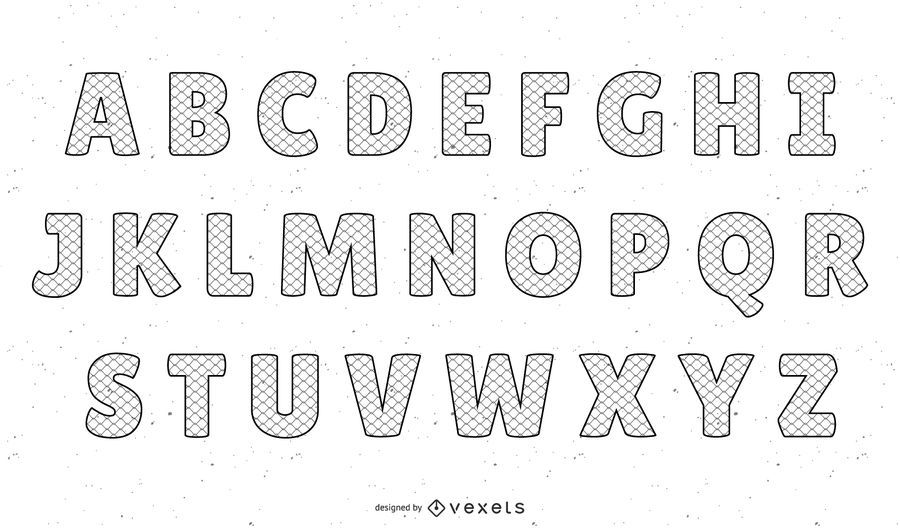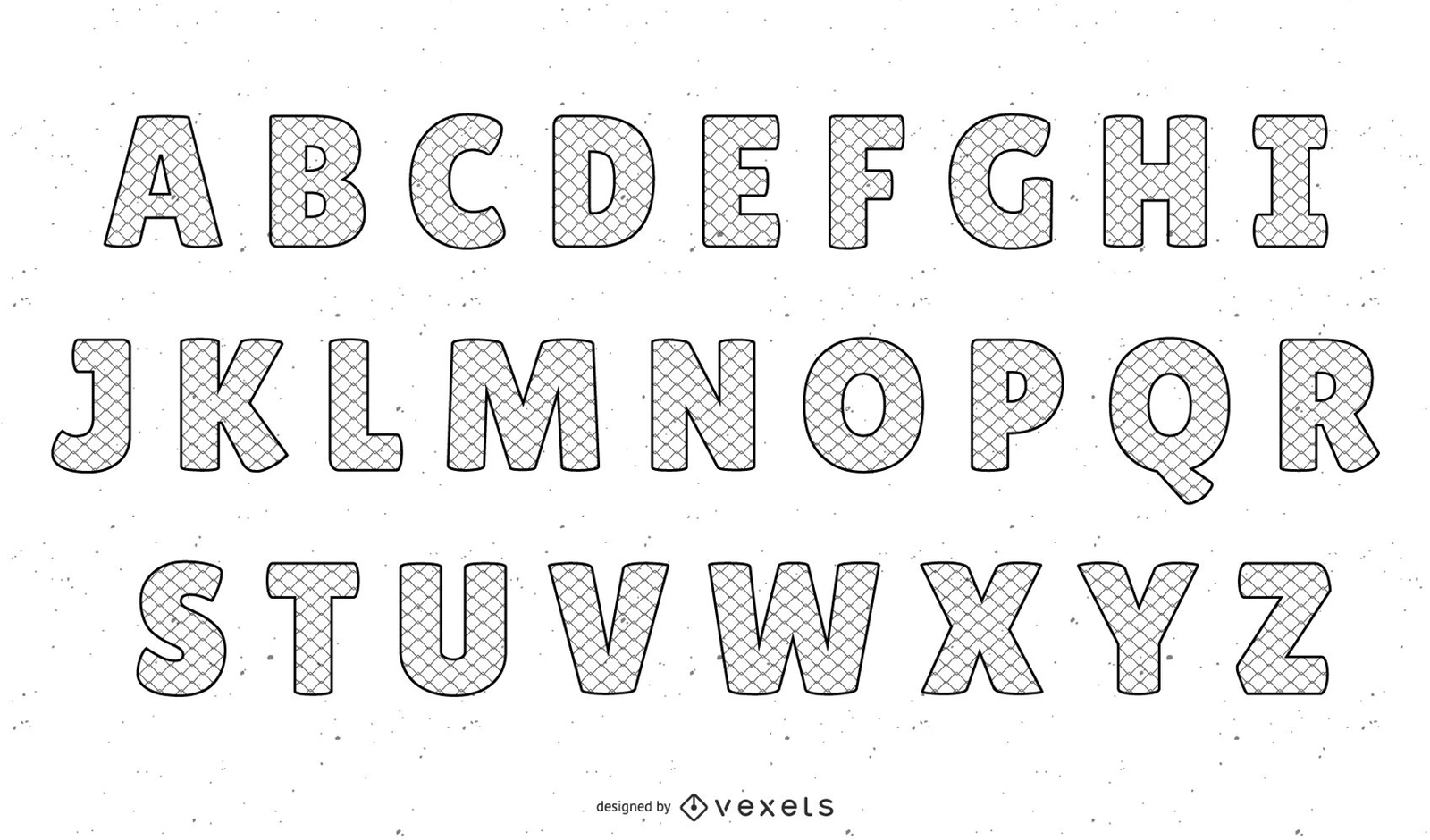
Wire Font
Wire font typeface pack contains alphabetic letters filled with diagonal crossing lines looking like wire inside the text. Suitable for typography and more